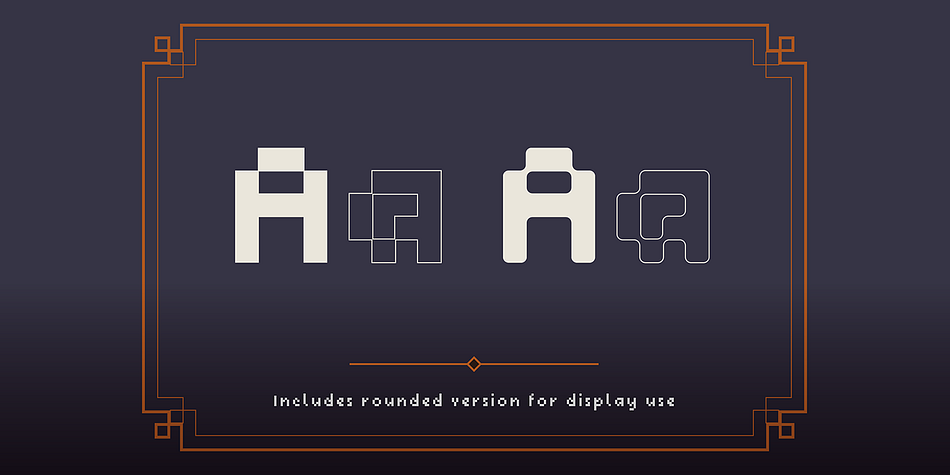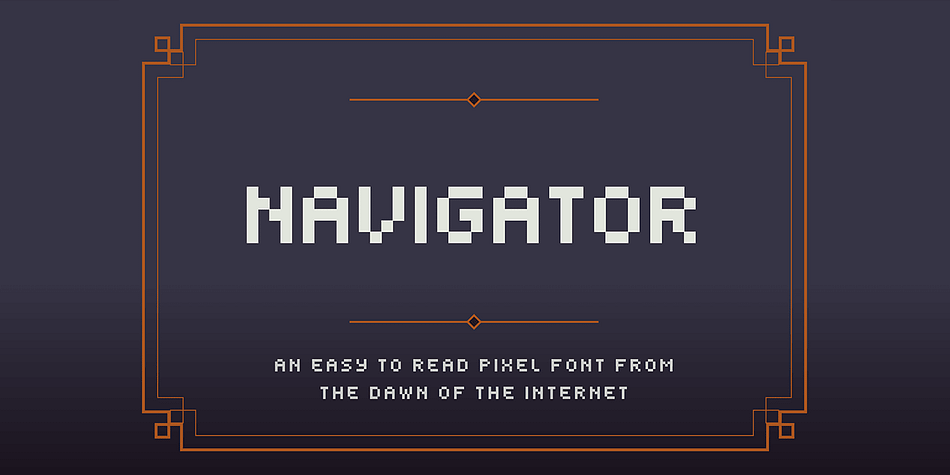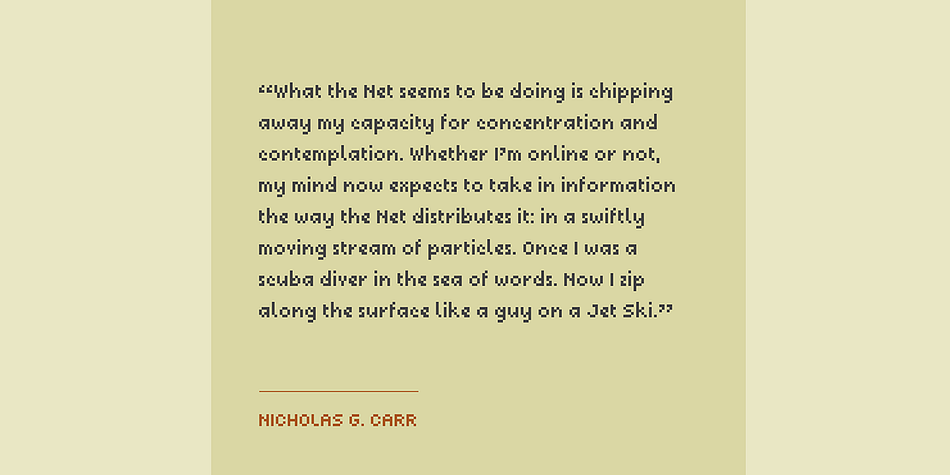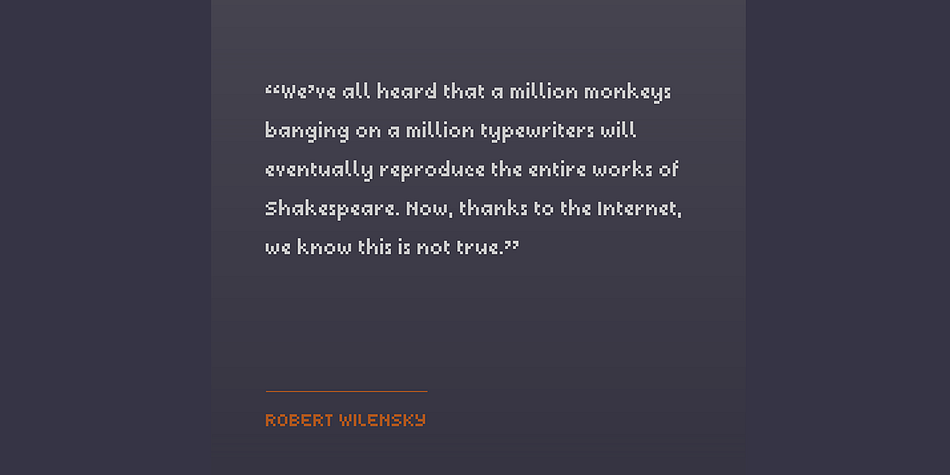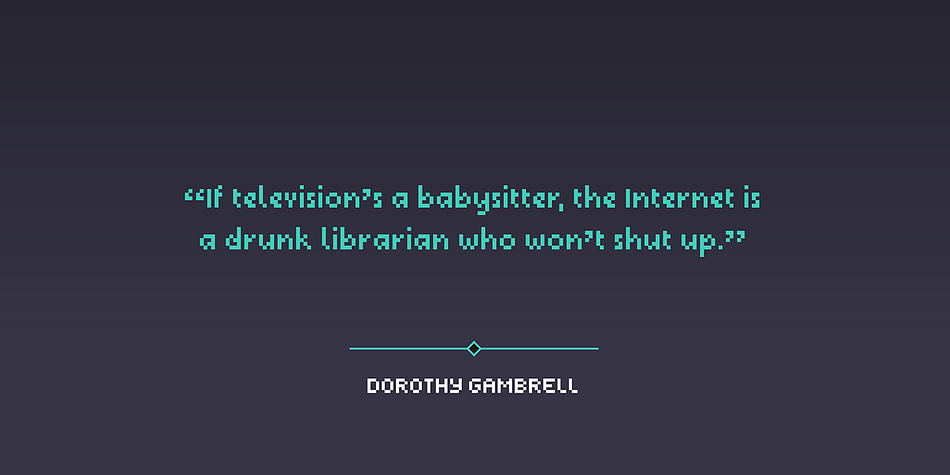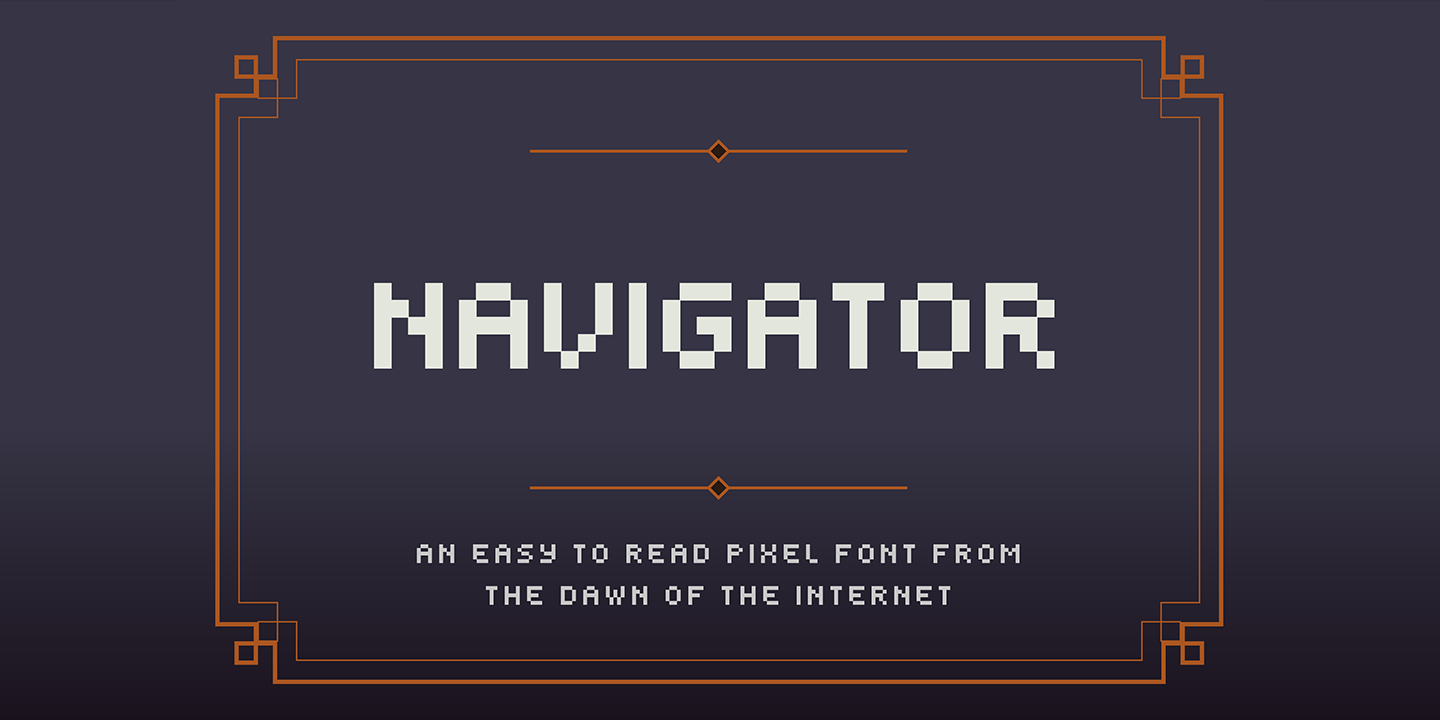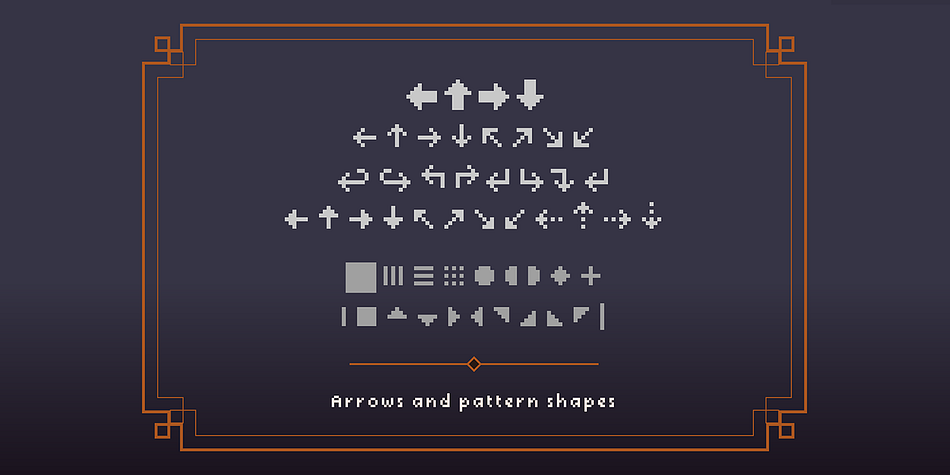
SB Navigator is a pixel font family. This typeface has two styles and was published by SelfBuild Type Foundry.
SB Navigator was designed for screen use, as a legible text typeface for use in website navigation menus. It was intended to be used as part of static pixel graphics or as part of a Flash animated menu, in the days when the web was a low-resolution experience, before webfonts became possible and when web designers were trying to find ways to push the internet forward from a design and usability point of view. SB Navigator also performs well as a text font, retaining good legibility at small sizes, thanks to lessons learned in the production of SB Liquid. It is optimised for use at 10px but can also work well at 20px. As a typeface it acts as a versatile alternative to the industry standard LCD font that SB Liquid is based on and would work well as part of an electronic display thanks to its clear letterforms. The family also features a rounded pixel version, opening it up for use as a headline typeface for high-DPI displays.